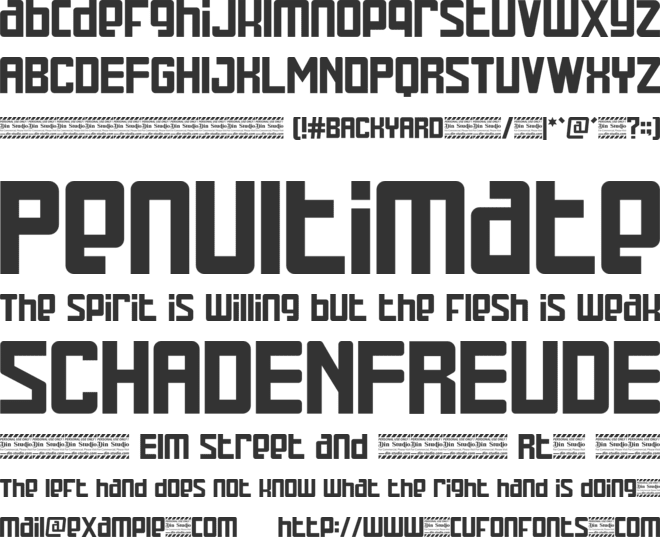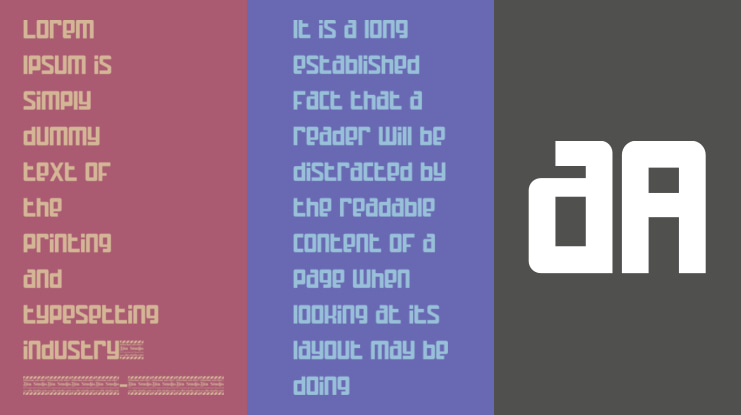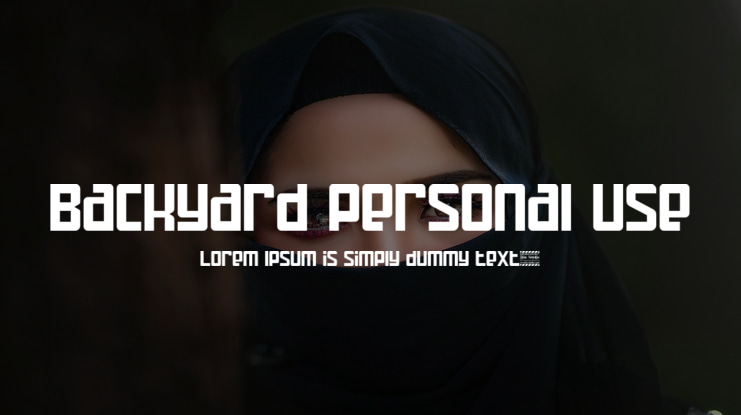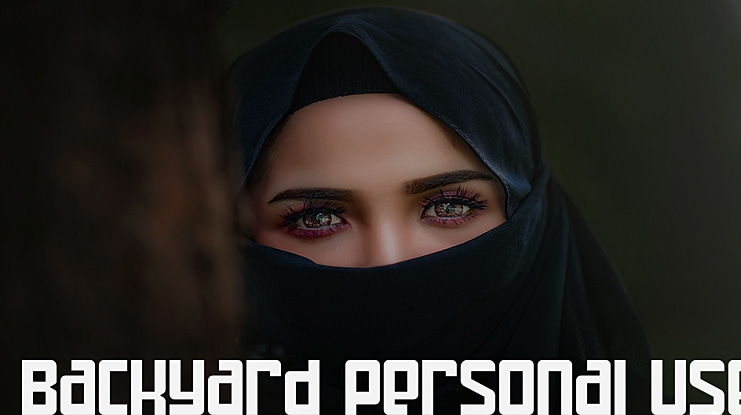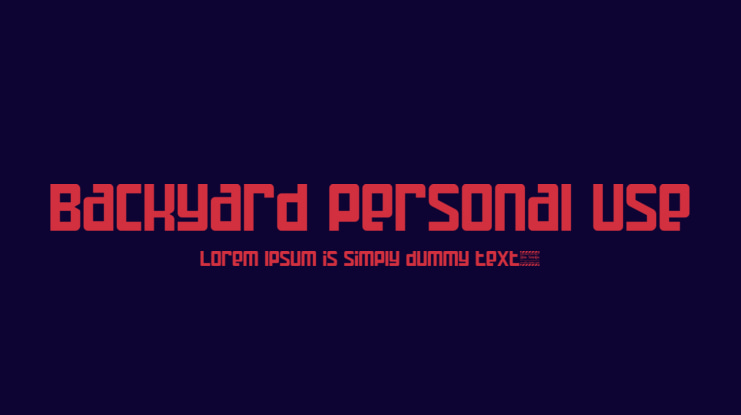
Introducing Backyard – A Display Font
This awesome typeface with amusing style looks very interesting for loads of different projects and
promotions. It is perfect to be used on your website, for your social media branding, Pinterest banners,printed products, and more!